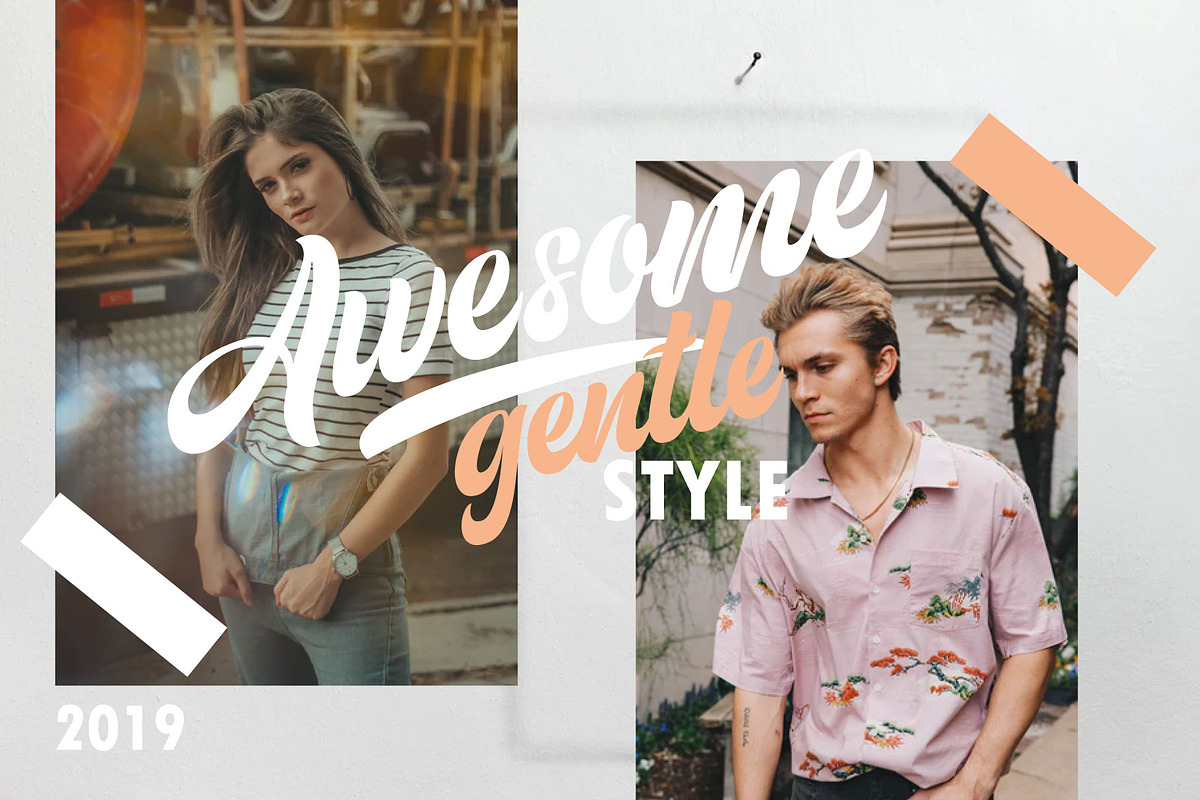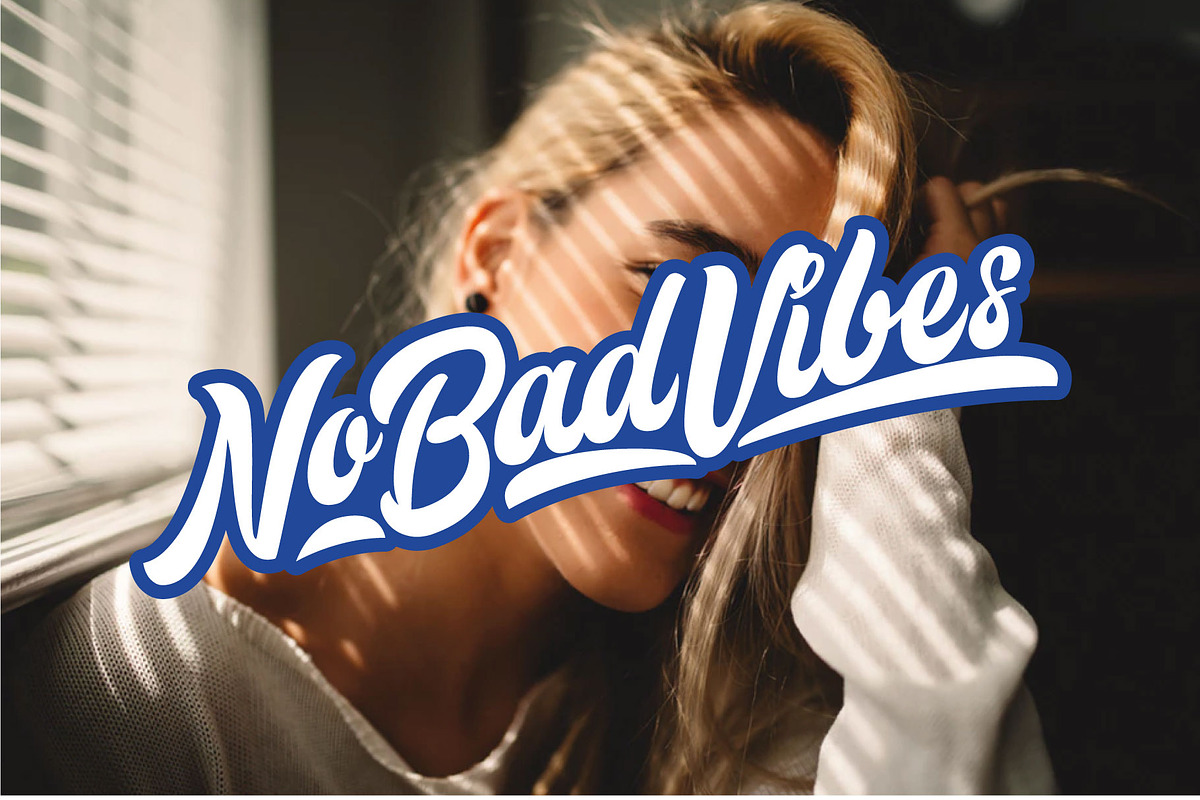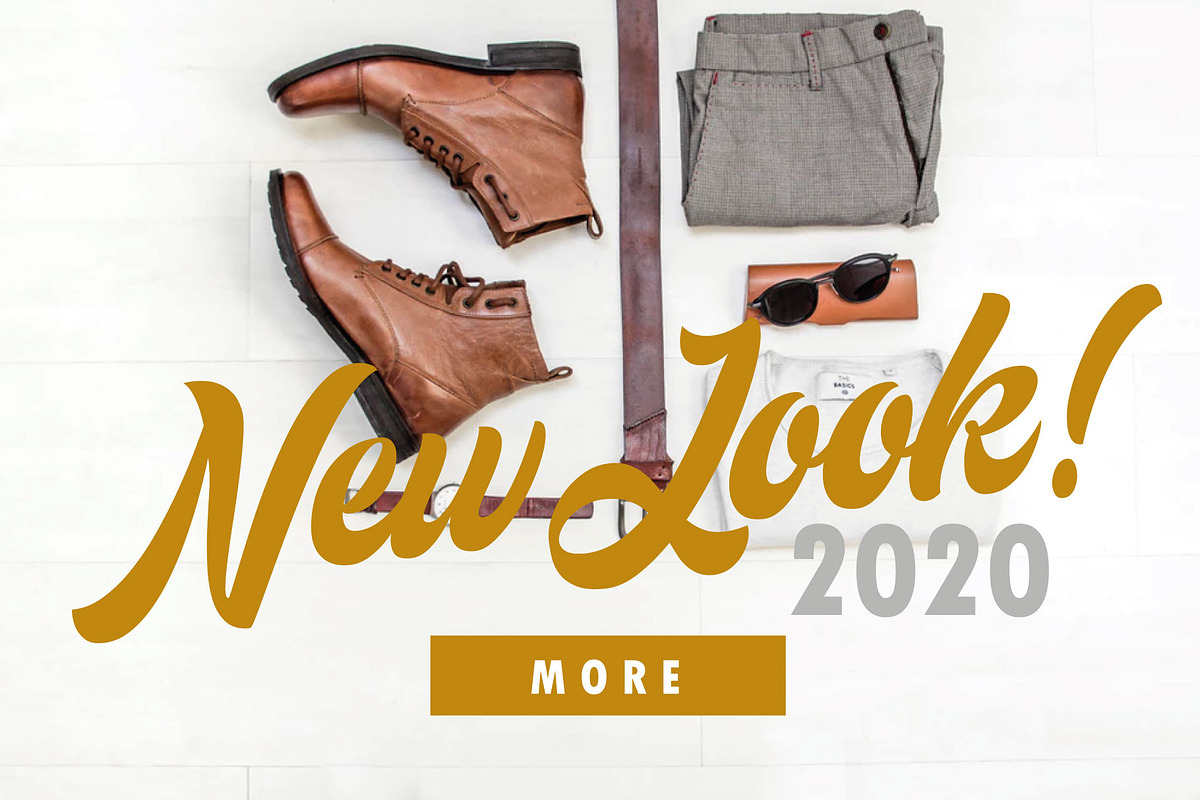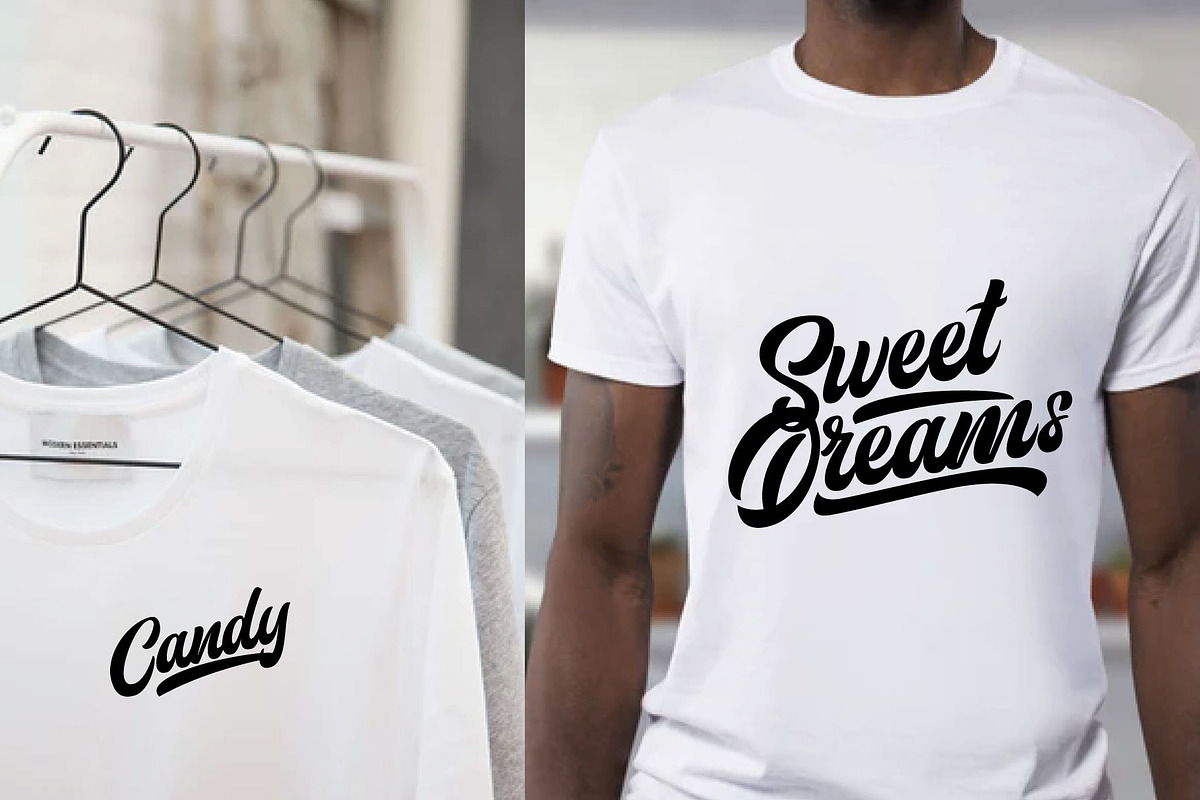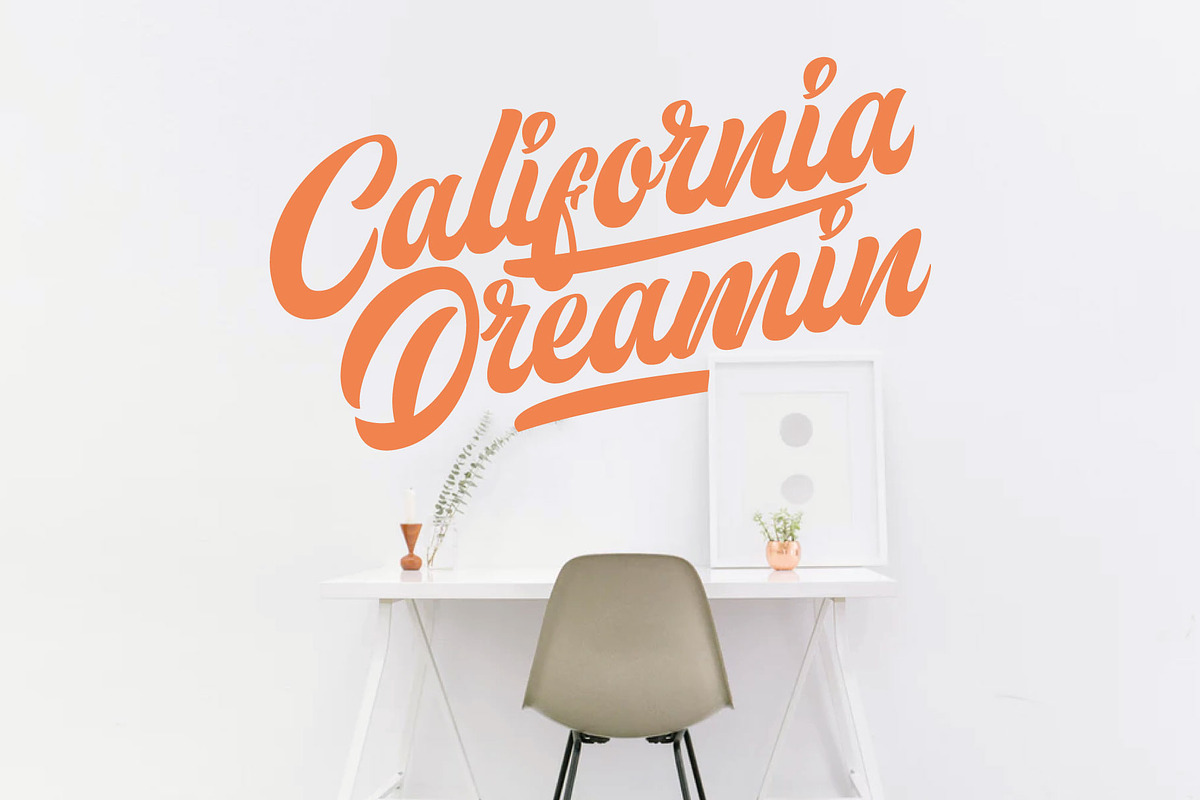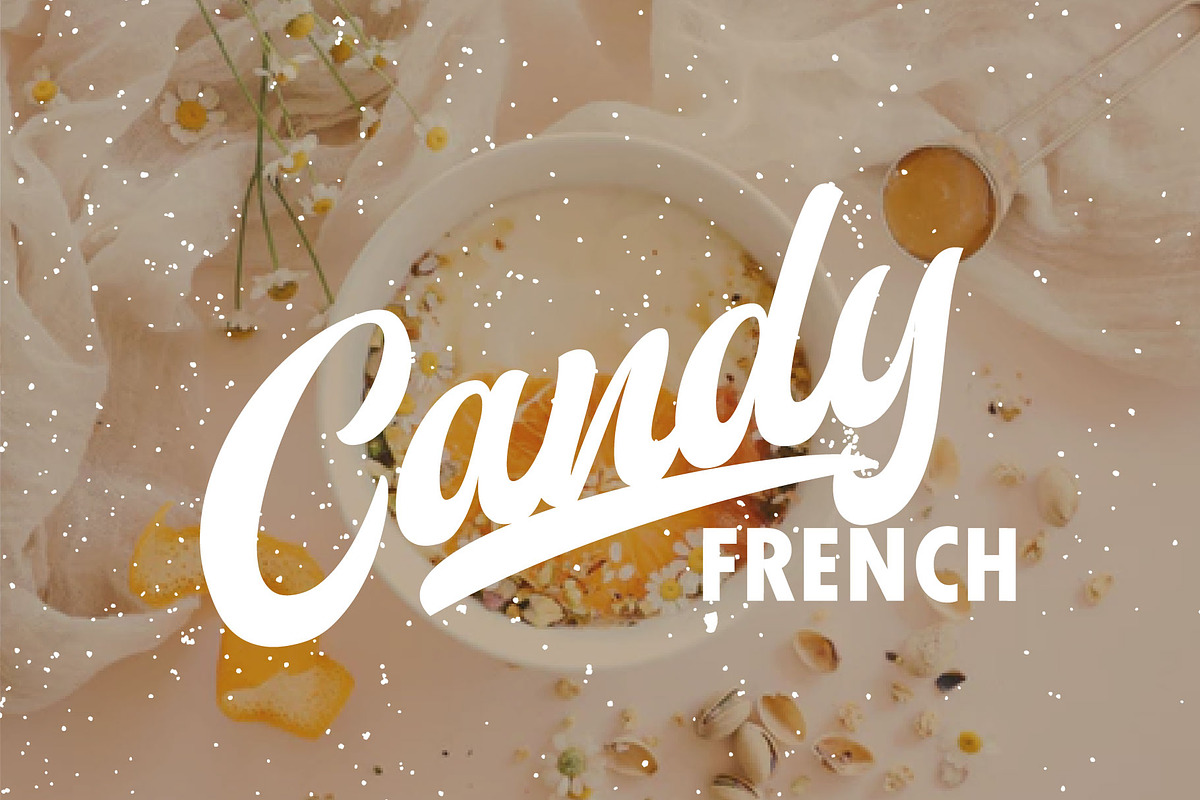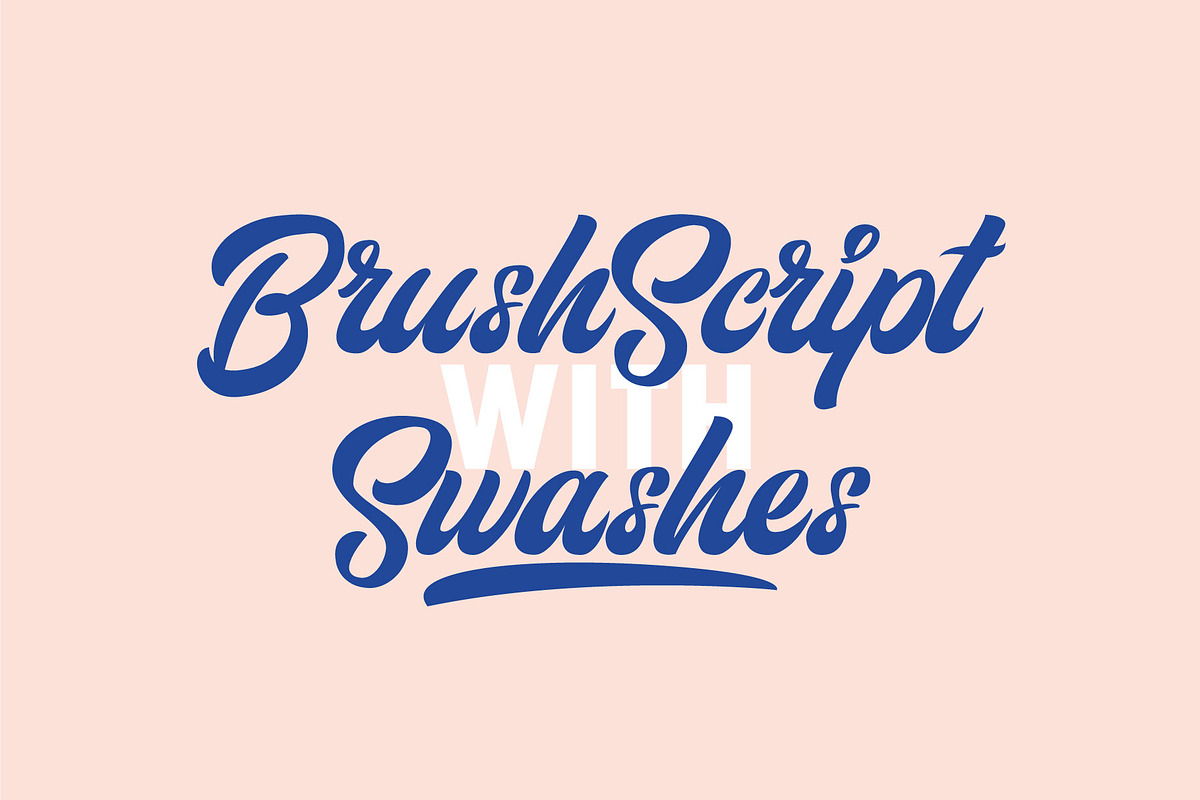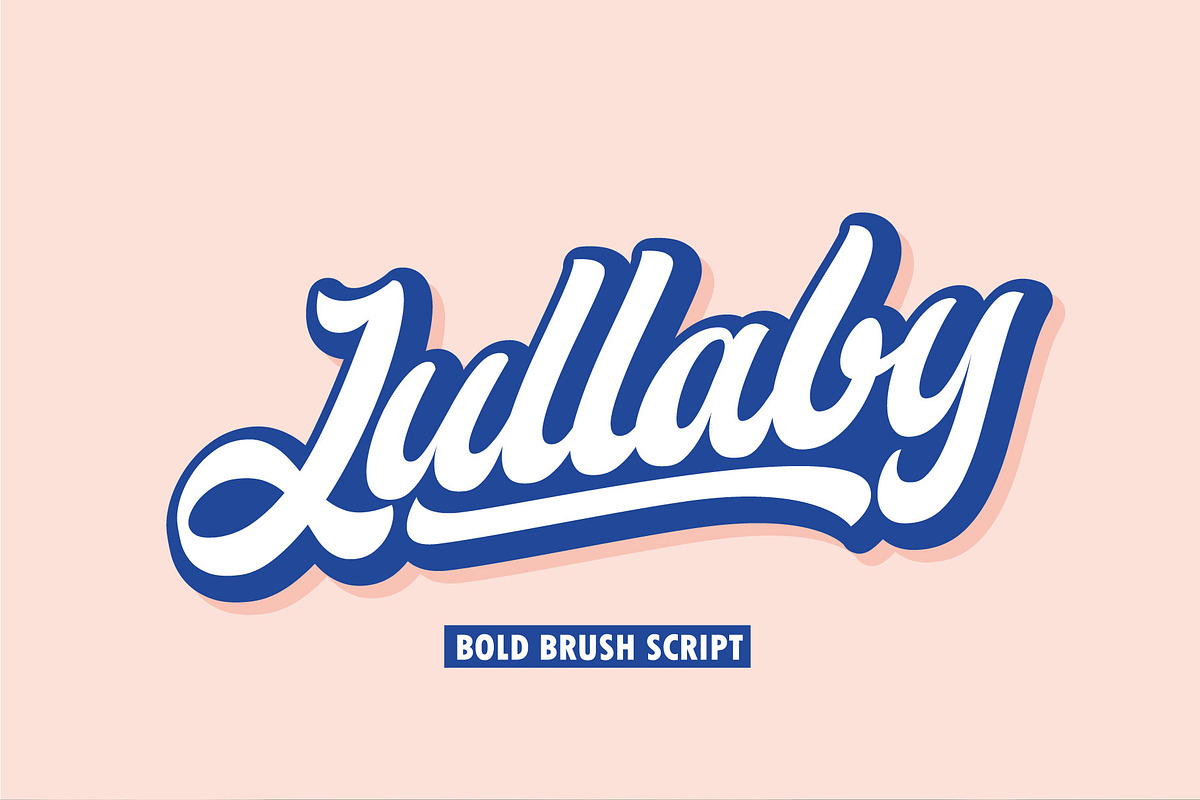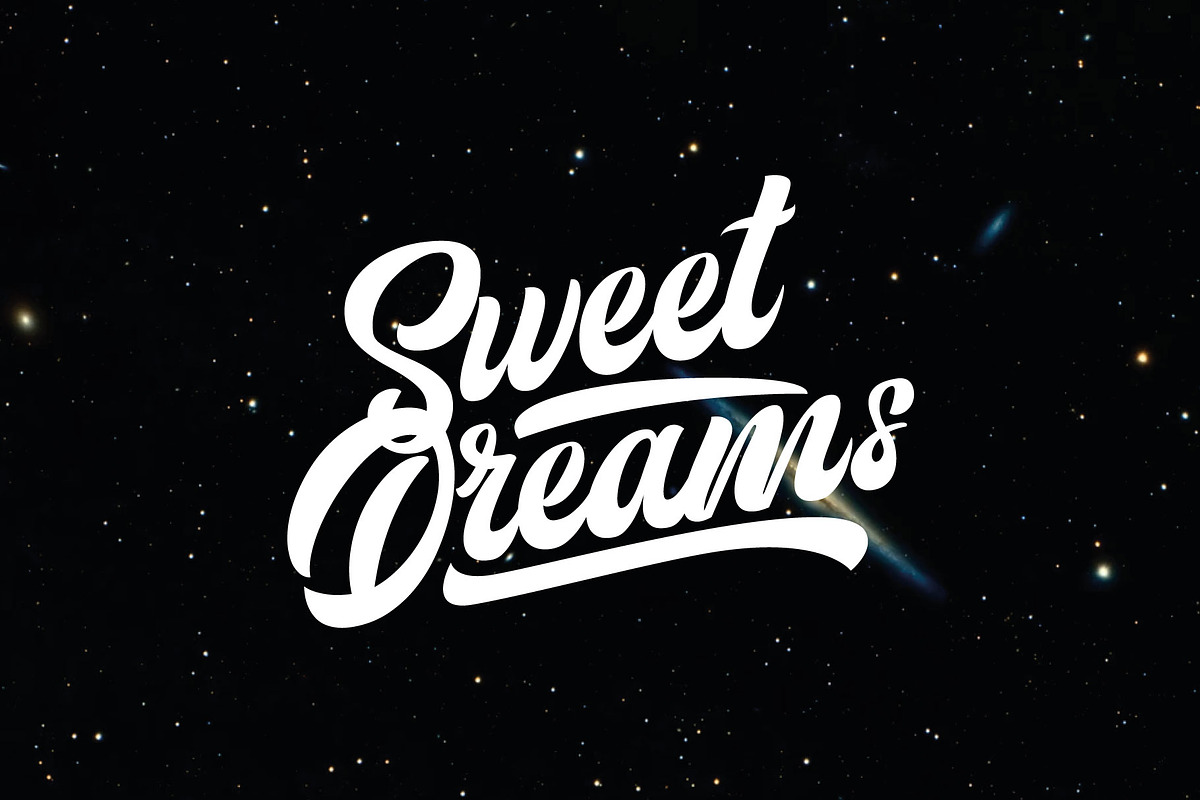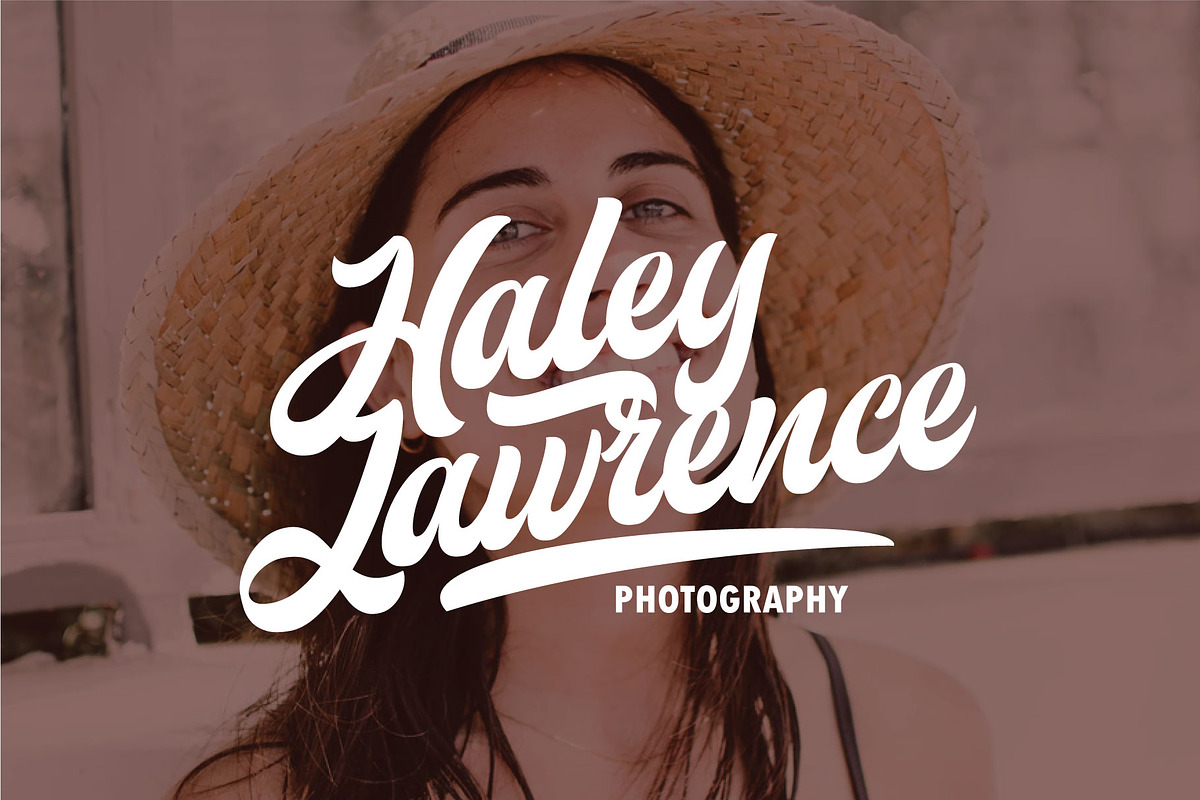
Lullaby | Bold Script
Lullaby beautiful bold brush script that makes for gorgeous logos, posters, blog posts, social media, and more!
- Lullaby Script
- Lullaby Swashes
Swashes: A-G